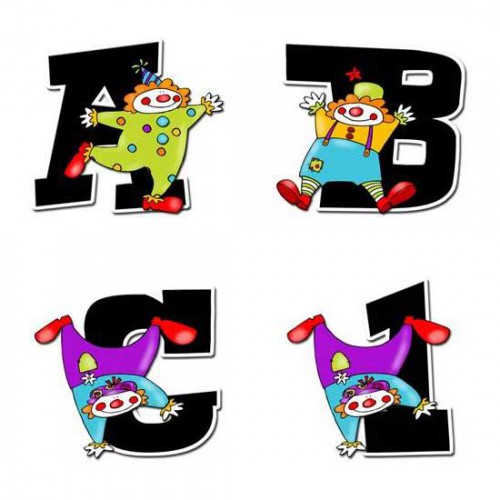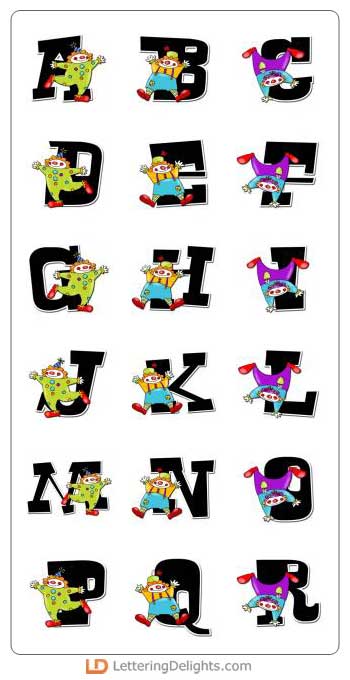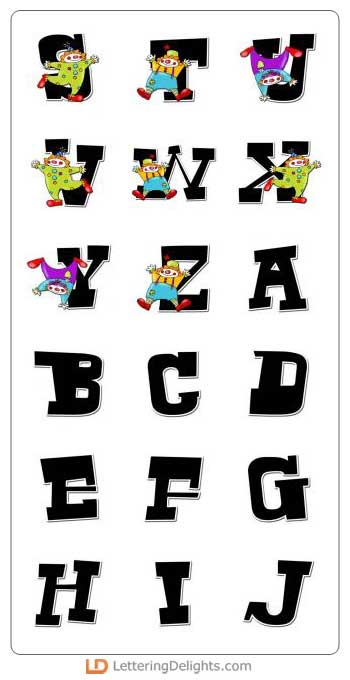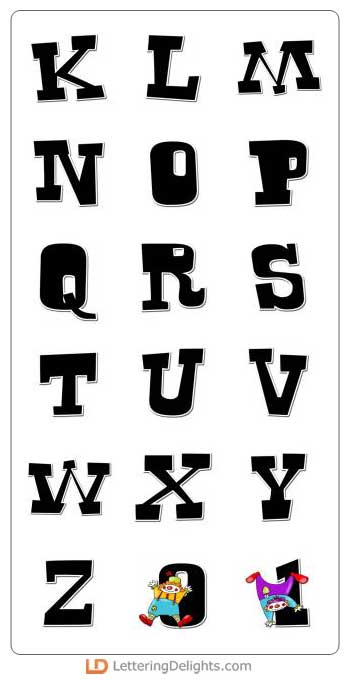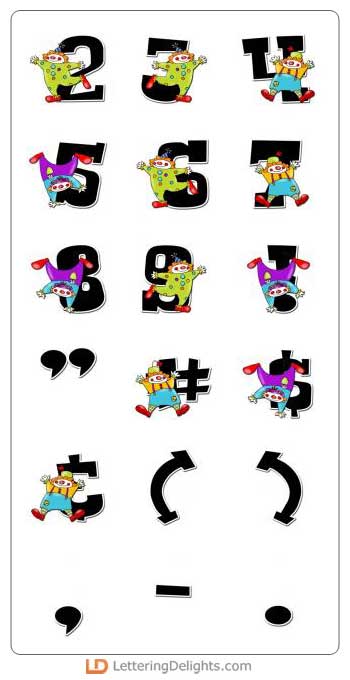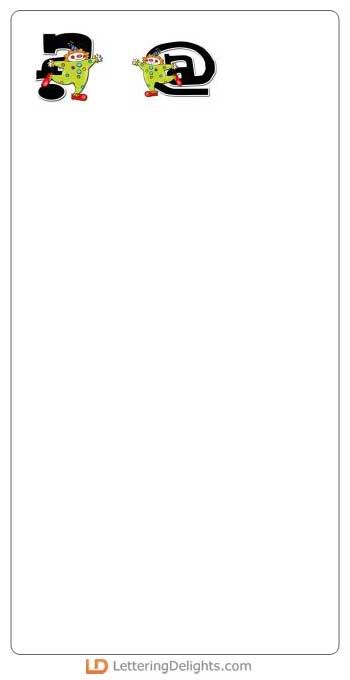
You can have a ball creating colorful birthday cards, invitations, announcements, and scrapbook pages with this clown-accented alphabet. Add embellishments with the matching kid-friendly Journaling Delights set.